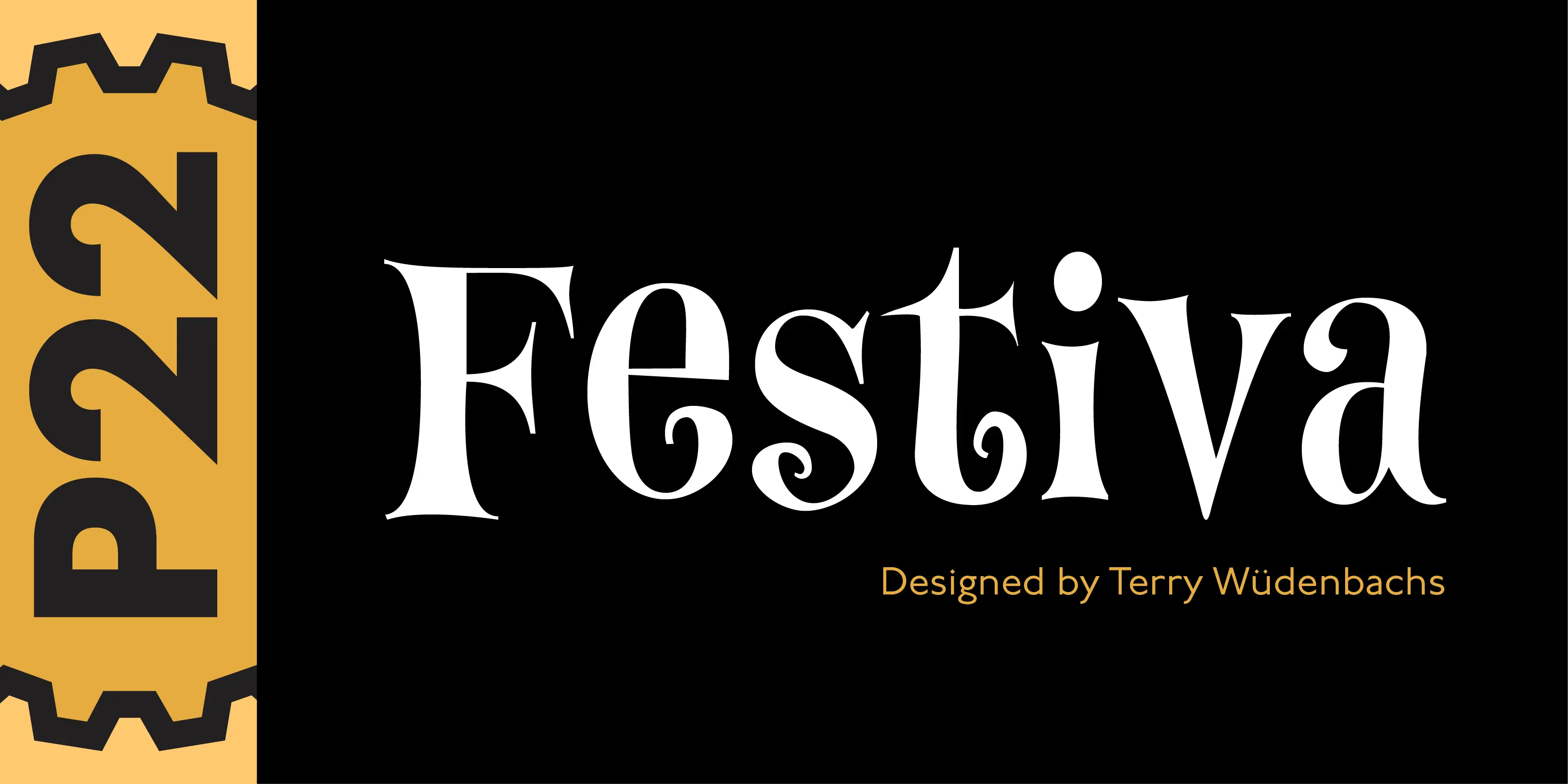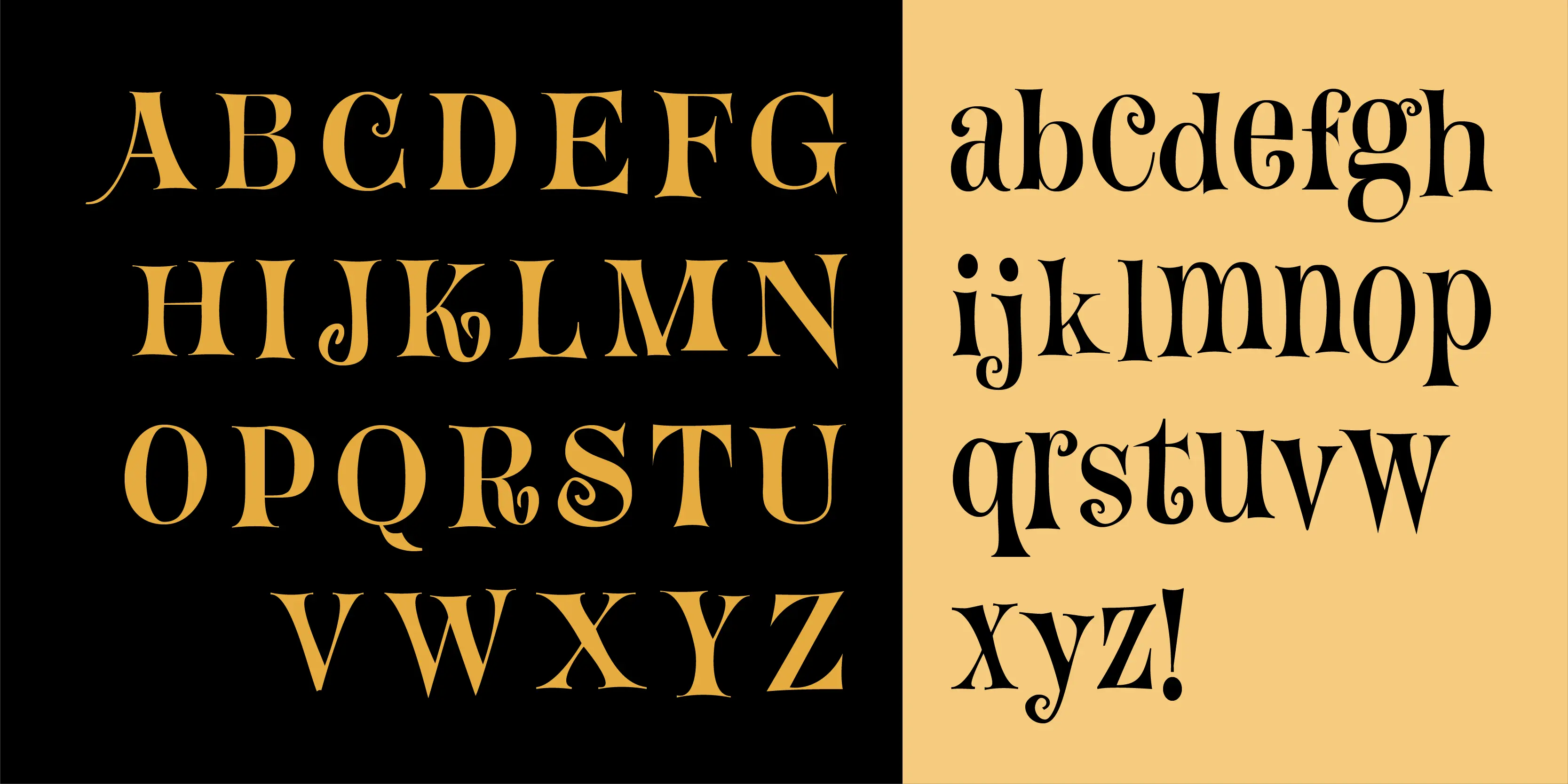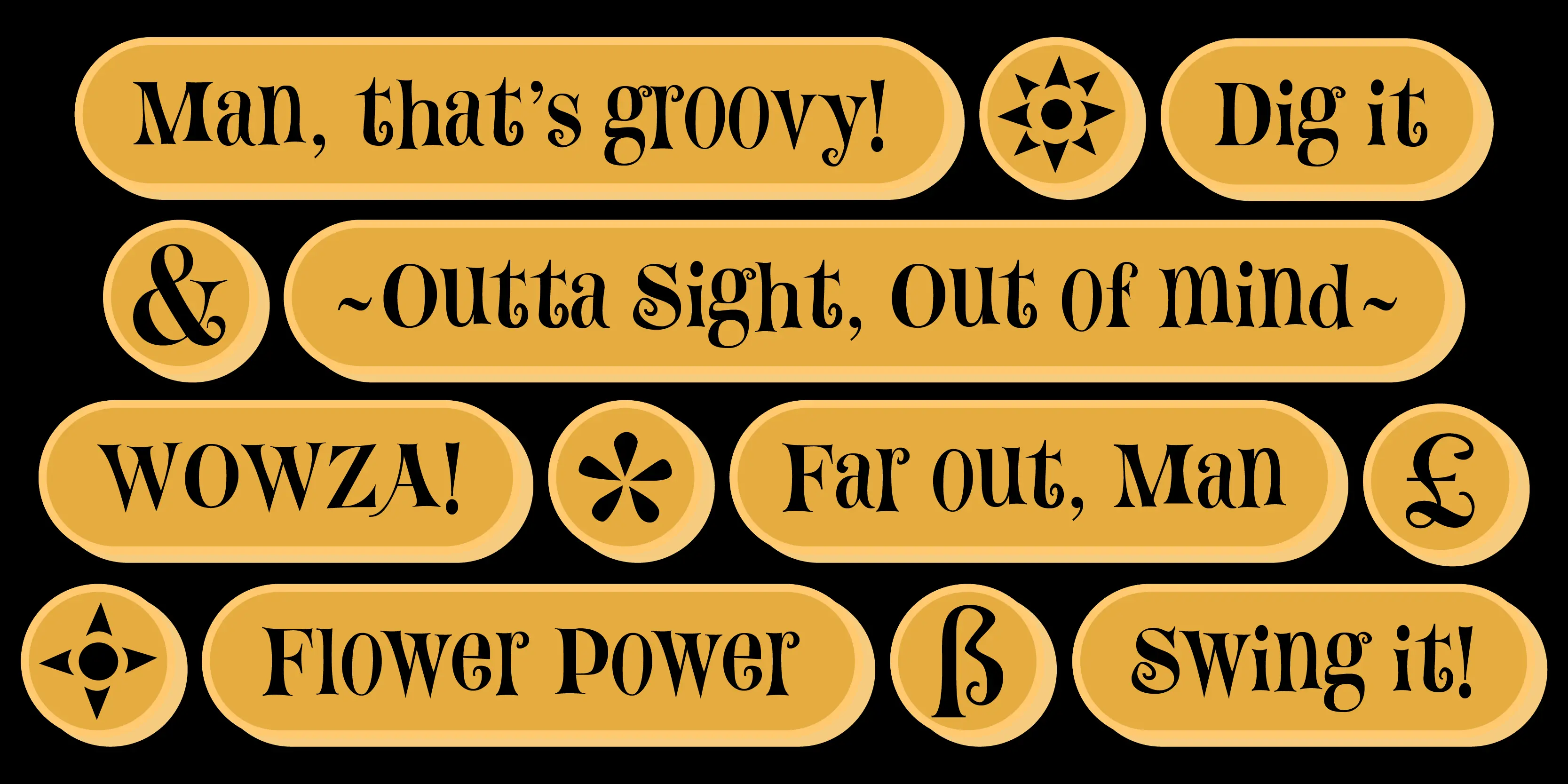
Festiva Font
Festiva
Festiva is based on lettering found on a 1960s kitchen appliance catalog. It evokes 1960s TV and pop culture while still having a contemporary feel. The fun exuberant flavor of this face is perfect for parties and celebrations. The letters dance across the baseline and the lower case wants to be an upper case but just can’t quite make it. P22 Festiva Regular includes a full unicode European Character set (Western, CE, Turkish, Romanian etc).